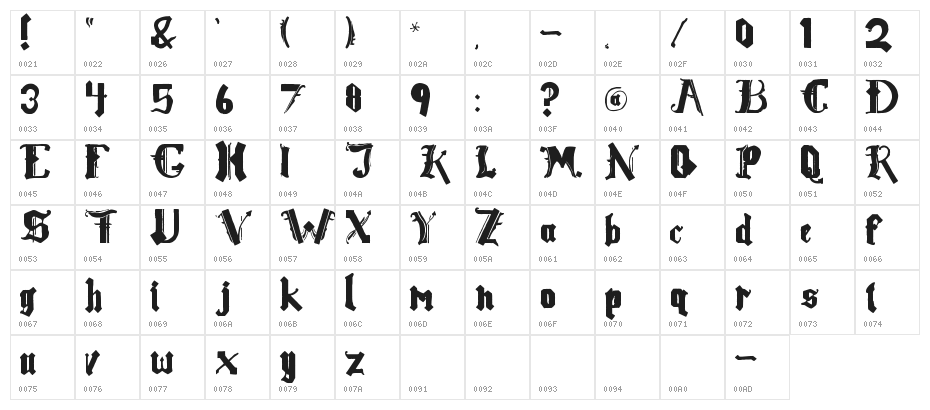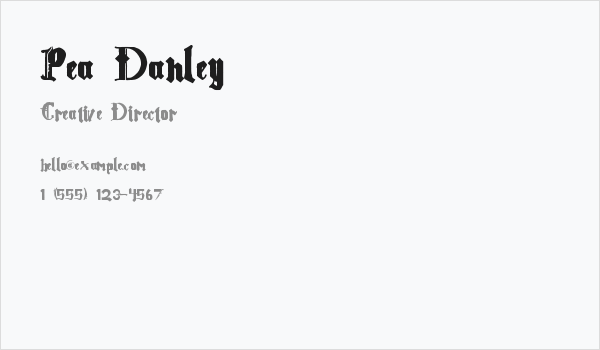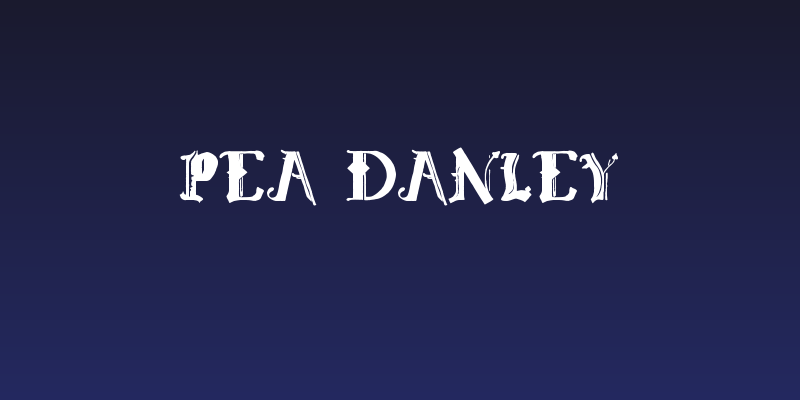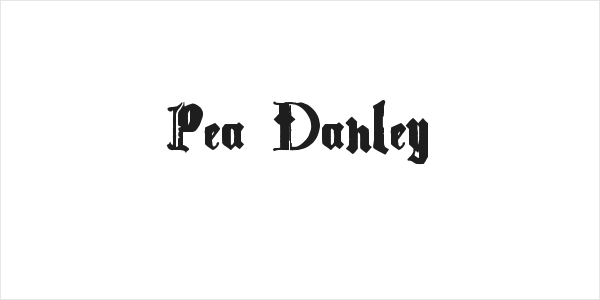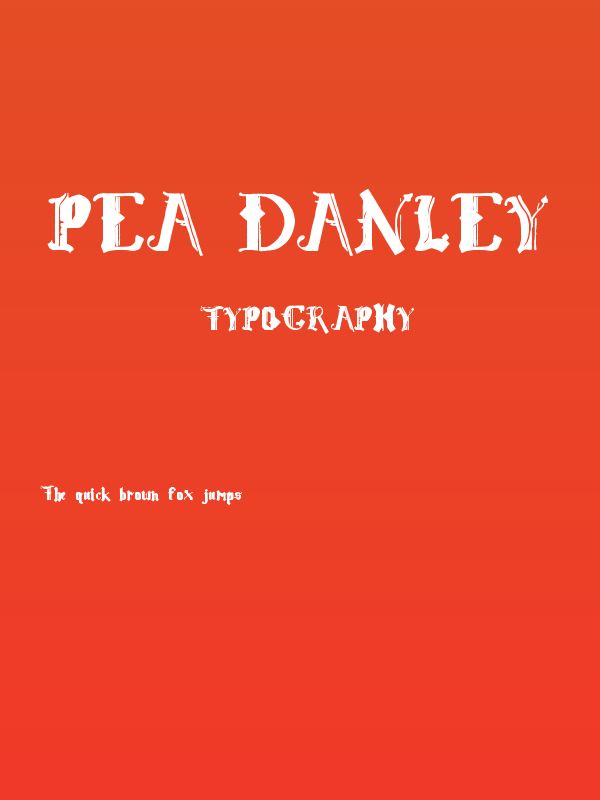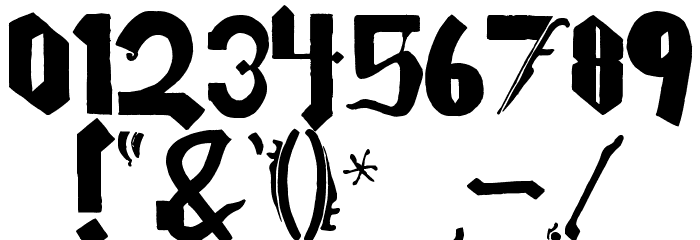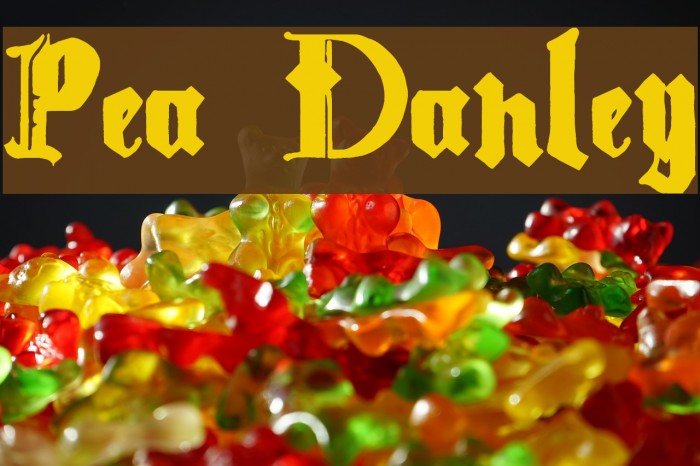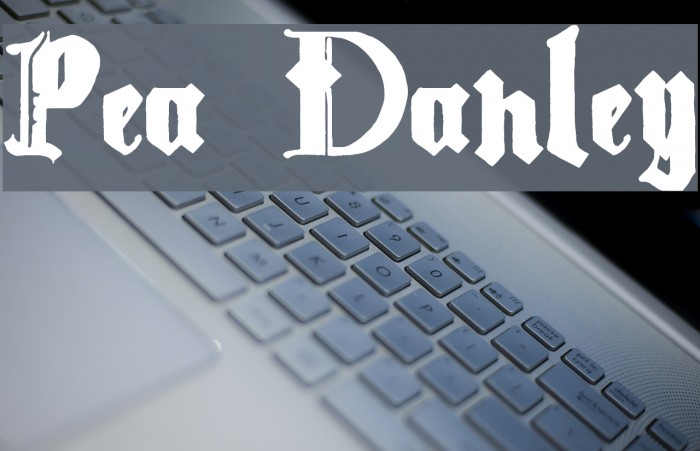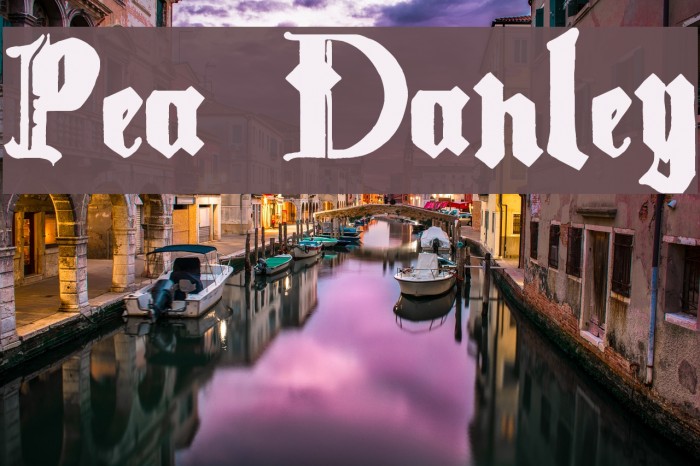
Pea Danley Font
Pea Danley Description
This font features a bold and dramatic style with a distinct Gothic influence. The uppercase letters are characterized by sharp, angular lines and intricate details, creating a sense of elegance and mystery. The lowercase letters maintain this theme, with unique flourishes and a slightly condensed appearance. The numbers are bold and consistent with the overall style, while the special characters add a touch of whimsy with their creative forms. This font's high contrast in stroke thickness enhances its striking appearance, making it ideal for attention-grabbing designs.
| Overall Style | Gothic, Decorative |
| Proposed Projects | Perfect for creating eye-catching posters, book covers, or branding materials that require a dramatic and elegant touch. |